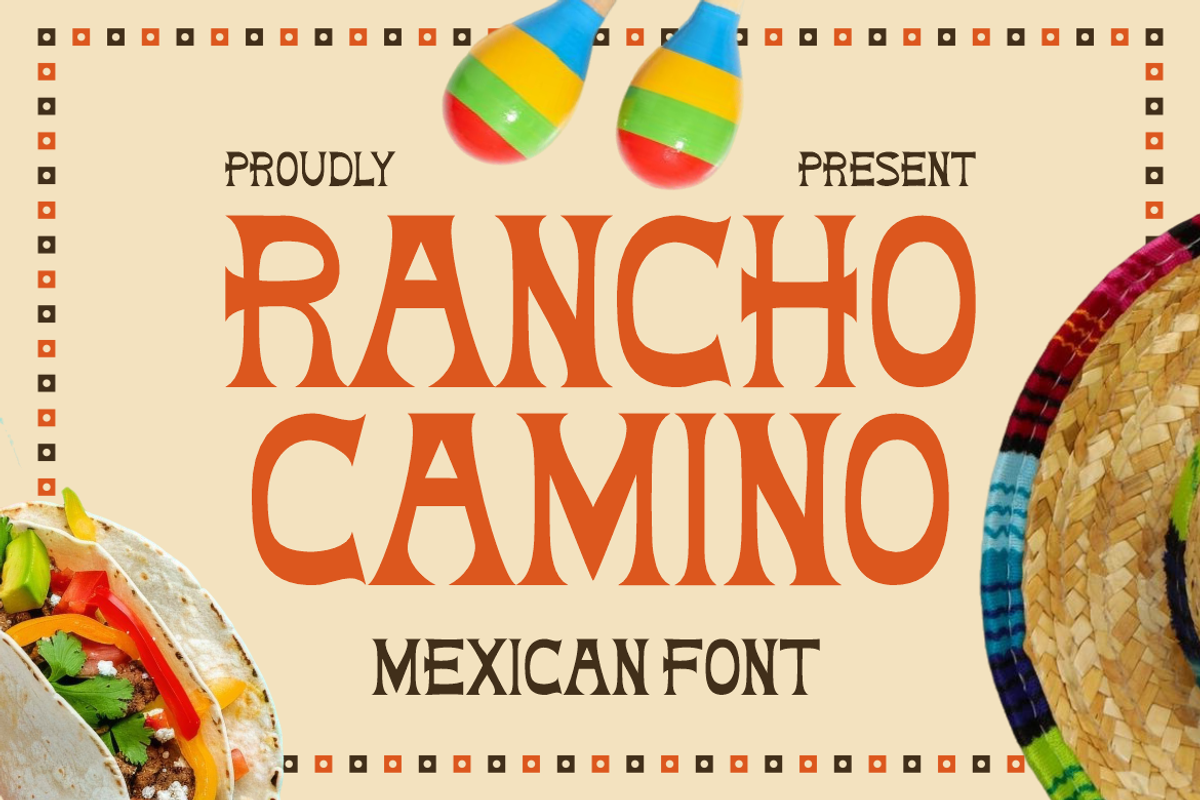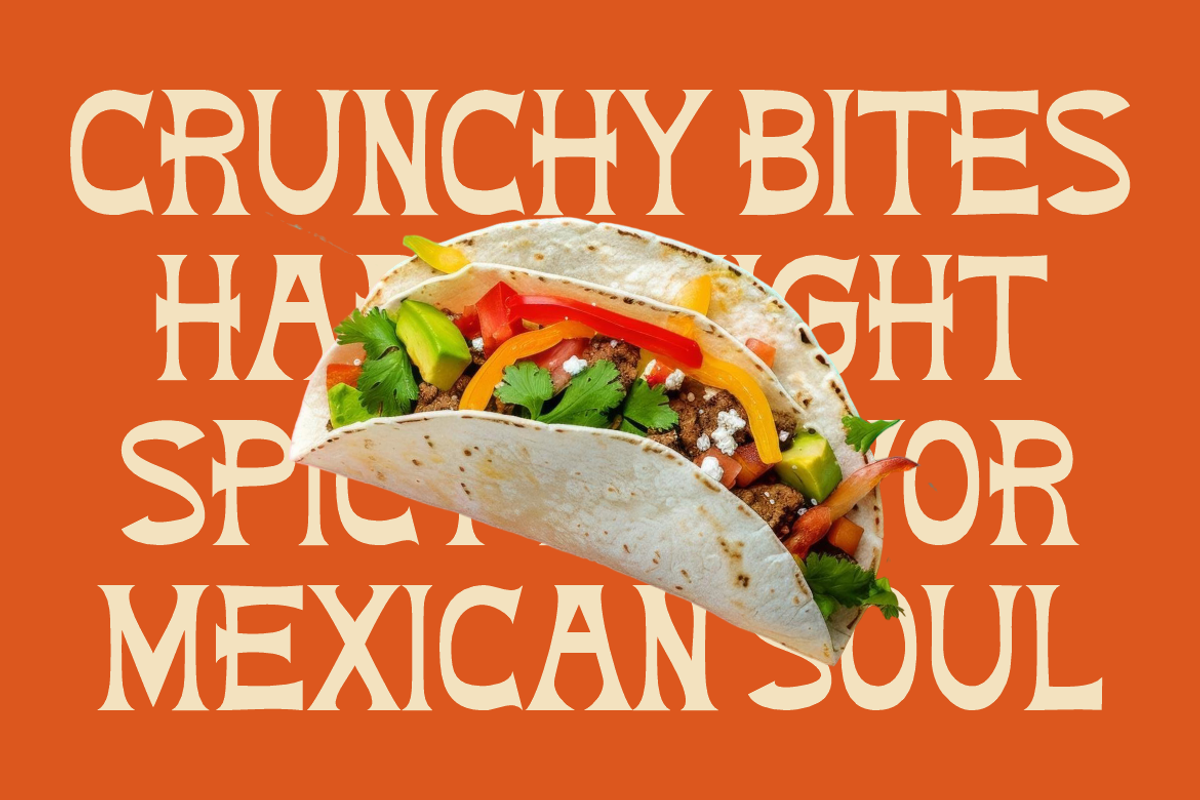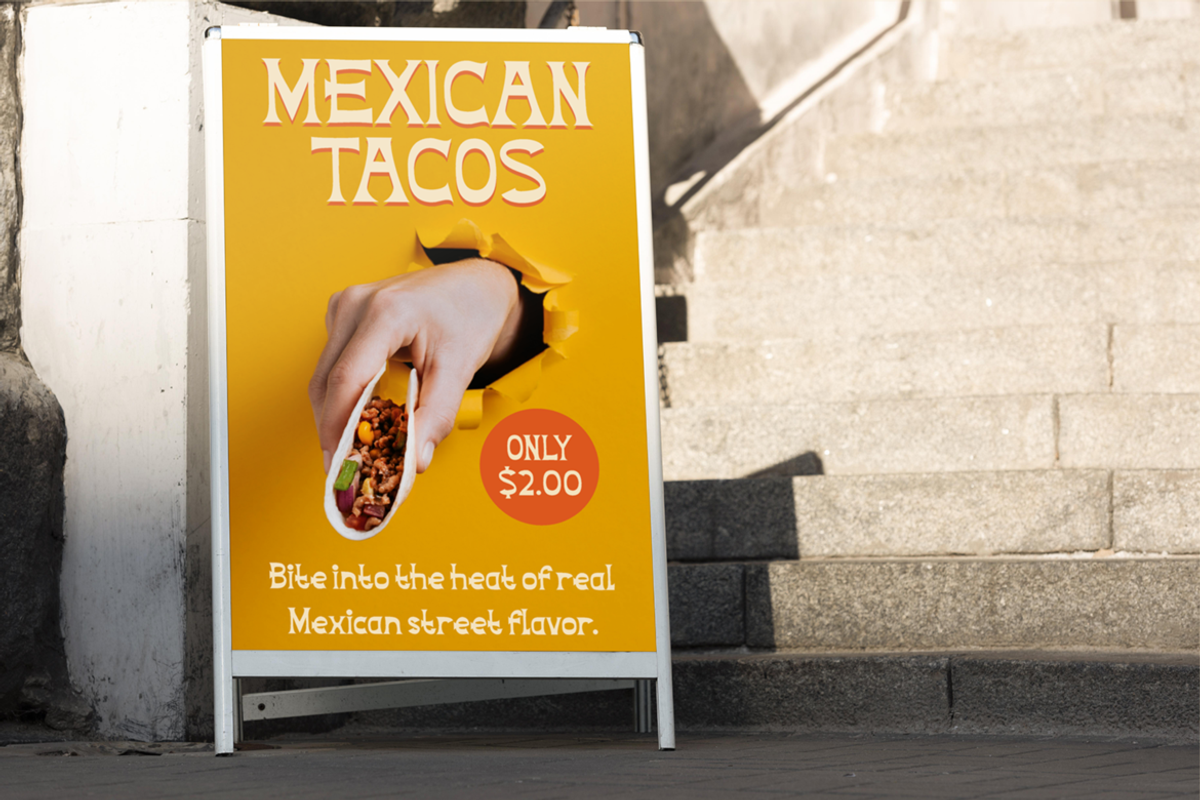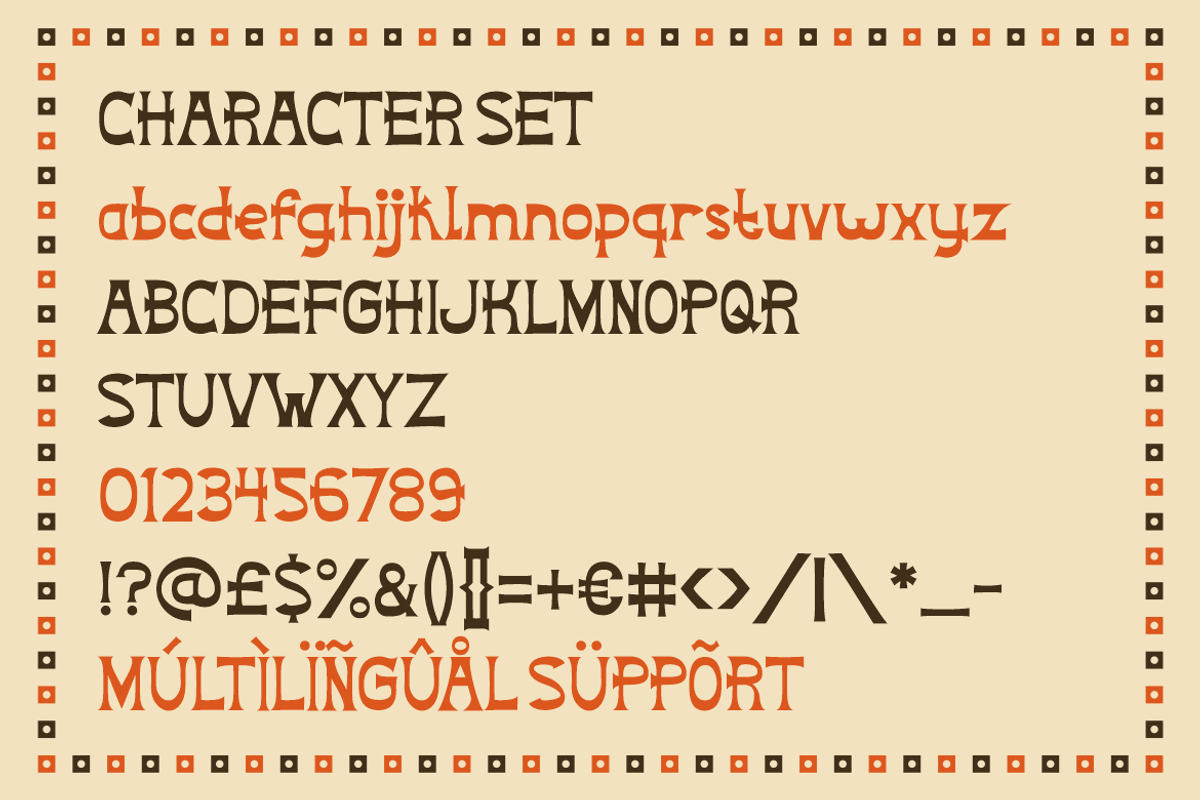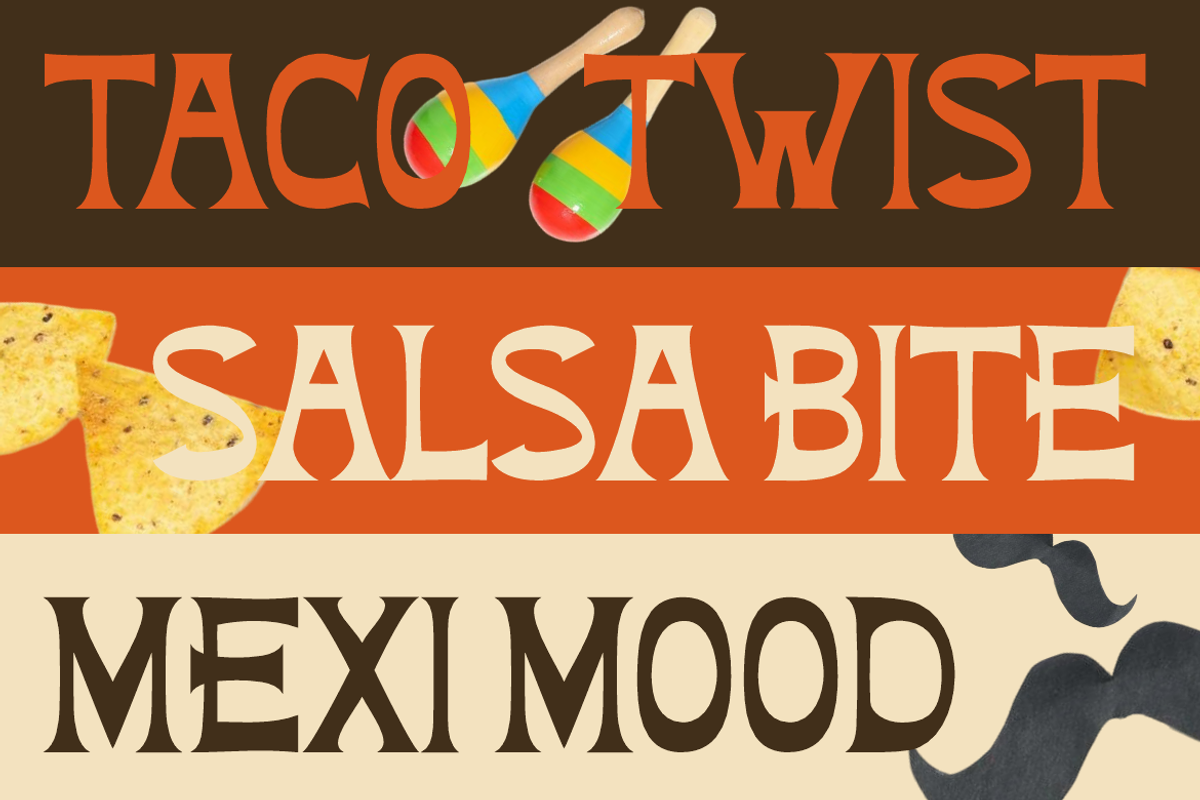
Rancho Camino Mexican Font
Rancho Camino Mexican Font captures the vibrant energy of Mexican culture through its bold and rhythmic letterforms. Each character is crafted with distinctive curves, pointed serifs, and slightly uneven edges that reflect the handmade artistry of Latin design. The tall and confident letter structure balances width and height beautifully, creating a dynamic silhouette that stands out in any layout. This font embraces the warmth and spirit of traditional Mexican aesthetics—playful yet strong, cultural yet modern. Rancho Camino Mexican Font delivers personality and energy, perfect for projects that aim to express festive and flavorful creativity.
Ideal for logos, restaurant branding, packaging, posters, and event promotions, this font brings an authentic Latin flair to your visual identity. It enhances designs with a cheerful, vintage vibe that feels bold and expressive. Its handcrafted details make it perfect for food-related themes, especially those celebrating Mexican cuisine, tacos, or fiesta concepts. Rancho Camino Mexican Font gives every project a distinct cultural rhythm that feels both nostalgic and fresh. Designed for designers who love expressive typography, it’s a celebration of bold creativity and traditional charm—crafted to bring warmth and life to every word.